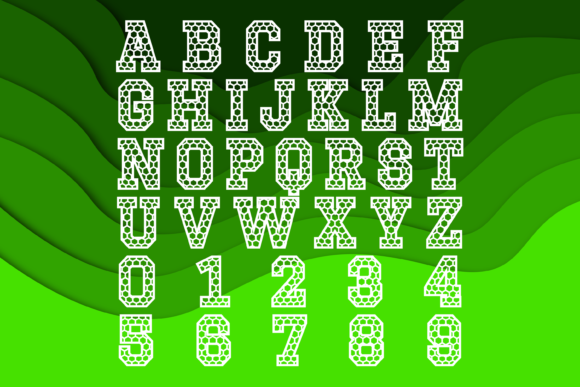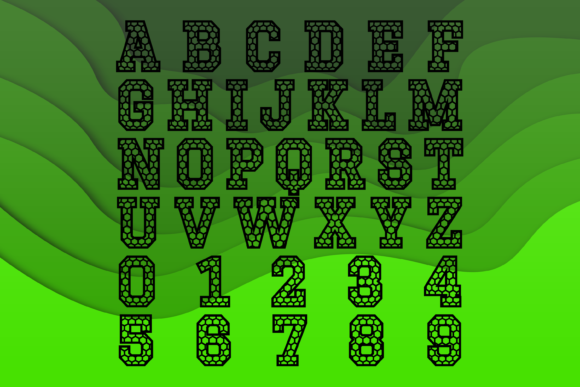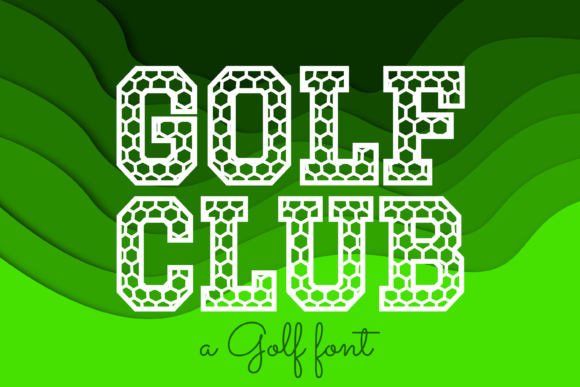
Golf Club Font: Elevate Your Designs with a Touch of Elegance
Golf Club is an incredibly cool decorative font. Whether you use it for custom designs, DIY crafts, or just any creation that requires a lovely touch, this font will be an amazing choice. In this article, we’ll dive into the world of Golf Club Font, exploring its features, uses, and benefits for designers and crafters.
What is Golf Club Font?
Golf Club Font is a decorative typeface that exudes elegance and sophistication. Its unique design is inspired by traditional golf club logos and signage, making it perfect for projects that require a touch of luxury and refinement. The font features intricate details, curved lines, and a classic feel that will add a high-end look to any design.
Key Features of Golf Club Font
- Unique and decorative design: Golf Club Font boasts a distinctive style that sets it apart from other fonts.
- Elegant and sophisticated: The font’s classic feel makes it perfect for designs that require a touch of luxury.
- High-quality and scalable: Golf Club Font is designed to be clear and legible, even at small sizes.
- Multilingual support: The font supports multiple languages, making it a great choice for international designs.
Uses of Golf Club Font
Golf Club Font is a versatile typeface that can be used in a variety of projects, including:
- Custom designs: Use Golf Club Font to create stunning custom designs for logos, branding, and advertising.
- DIY crafts: Add a personal touch to your DIY crafts, such as handmade cards, invitations, and scrapbooking.
- Signage and displays: Golf Club Font is perfect for creating eye-catching signage and displays for events, exhibitions, and retail spaces.
- Digital art and illustrations: Use the font to add a touch of elegance to your digital art and illustrations.
Golf Club Font offers several benefits for designers and crafters, including:
- Time-saving: Golf Club Font saves time and effort, allowing designers and crafters to focus on other creative aspects of their projects.
- Professional-looking results: The font’s high-quality design ensures professional-looking results, even for those without extensive design experience.
- Endless creative possibilities: Golf Club Font’s versatility and elegance make it perfect for a wide range of creative projects.
Tips and Tricks for Using Golf Club Font
To get the most out of Golf Club Font, follow these tips and tricks:
- Pair with complementary fonts: Combine Golf Club Font with complementary fonts to create visually appealing and harmonious designs.
- Experiment with colors and textures: Add depth and interest to your designs by experimenting with different colors and textures.
- Use for headlines and titles: Golf Club Font is perfect for headlines and titles, adding a touch of elegance and sophistication to your designs.
- Don’t be afraid to get creative: Golf Club Font is a versatile typeface that can be used in a variety of creative ways, so don’t be afraid to experiment and try new things.
Golf Club Font is an incredibly cool decorative font that offers a unique and elegant touch to any design. Its versatility, high-quality design, and ease of use make it perfect for designers and crafters looking to elevate their projects. Whether you’re creating custom designs, DIY crafts, or digital art, Golf Club Font is an excellent choice. So why not give it a try and see the difference it can make in your designs?